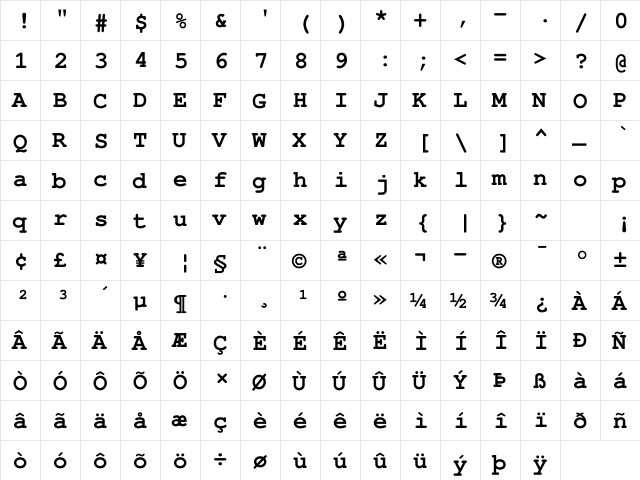
FreeMono Bold Font Preview
FreeMono Bold
FreeMono Bold Font Details
| Foundry | GNU |
Design Context for FreeMono Typeface
FreeMono uses fixed-width spacing throughout, giving it the structured, systematic character associated with coding environments and technical documentation. Its bold stroke weight gives it real presence on the page.
Pro Tip: Pair FreeMono with a proportional sans for UI contexts where code-style labels and regular body copy need to coexist.